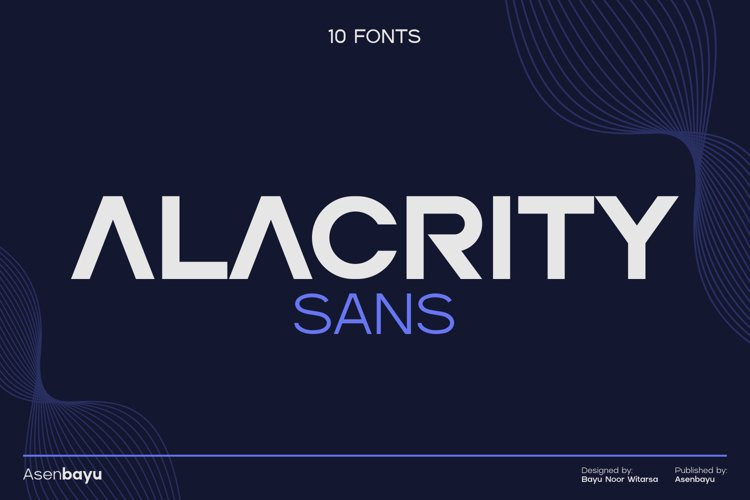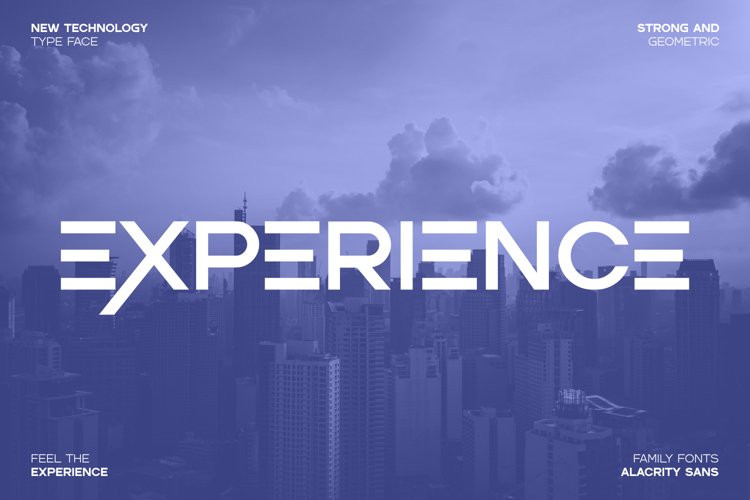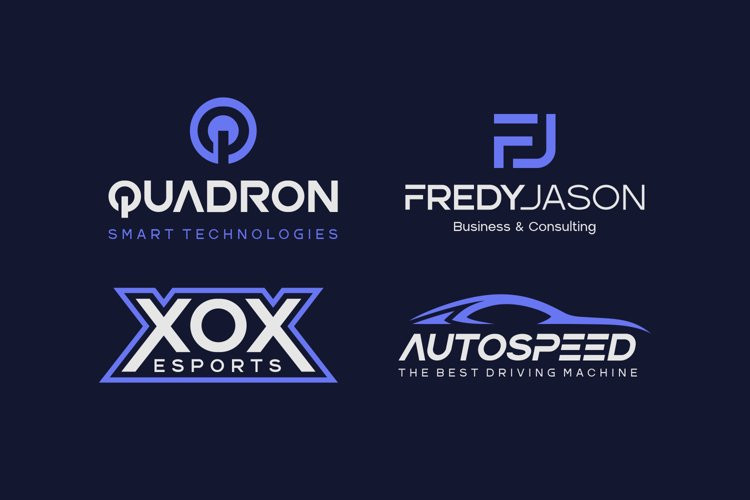
Alacrity Sans Font
Alacrity Sans Fonts are modern multipurpose family fonts with sophisticated geometric shapes. These fonts are perfect for your various projects such: logo and brand identity, journal, business cards, web, stationary, display, sport product, technology and more. Please see sample fonts in the images above. Happy shopping! 🙂